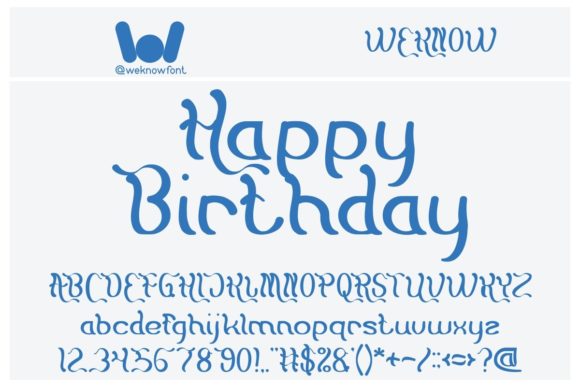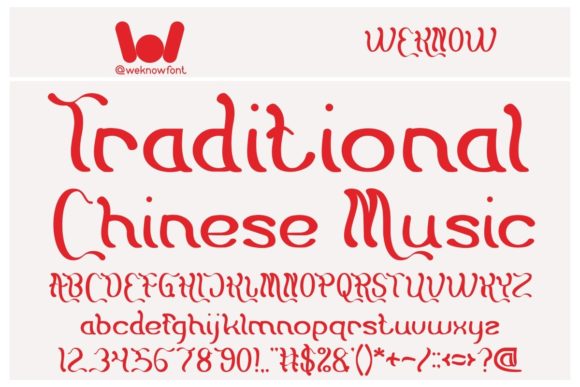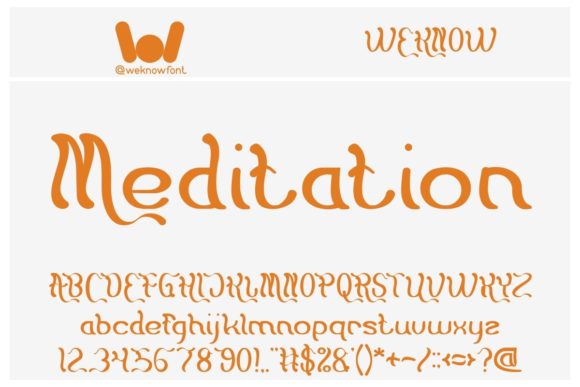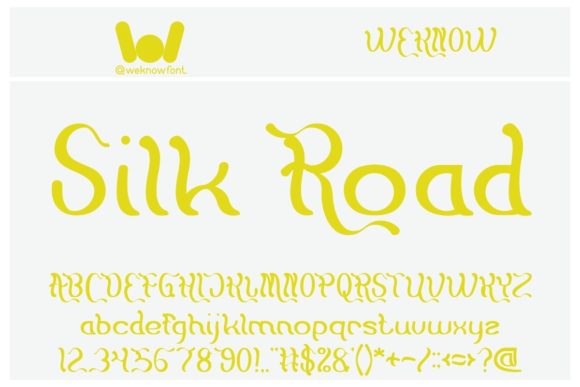
Introducing Flattered Font: Elevate Your Designs with Elegance and Sophistication
Are you a designer or crafter looking for a font that can add a touch of elegance and sophistication to your creative projects? Look no further than Flattered Font, a fancy and versatile typeface suitable for a wide range of applications. In this article, we’ll explore the features and benefits of Flattered Font, and how it can elevate your designs to the next level.
What is Flattered Font?
Flattered Font is a beautifully crafted font designed to add a touch of luxury and refinement to your designs. Its elegant and cursive style makes it perfect for creating stunning logos, logotypes, headlines, and other graphical elements. With its unique and sophisticated look, Flattered Font is ideal for various industries, including corporate identity, brand identity, apparel, posters, music, movies, games, magazines, books, comics, cartoons, and more.
Key Features of Flattered Font
- Versatility: Flattered Font is a highly versatile typeface that can be used in a variety of design projects, from logos and branding to posters and packaging.
- Elegant Style: The font features an elegant and cursive style that adds a touch of sophistication and luxury to your designs.
- High-Quality: Flattered Font is a high-quality font designed to deliver crisp and clear results, even at small sizes.
Use Cases for Flattered Font
Flattered Font is suitable for a wide range of design projects, including:
- Logo Design: Create stunning logos and logotypes that make a lasting impression.
- Branding: Establish a strong brand identity with Flattered Font’s elegant and sophisticated style.
- Apparel: Add a touch of luxury to your apparel designs, from t-shirts to hoodies.
- Posters: Create eye-catching posters that grab attention and leave a lasting impression.
- Digital Media: Use Flattered Font in your digital media projects, such as YouTube videos, Instagram posts, and website designs.
Benefits of Using Flattered Font
By using Flattered Font in your design projects, you can:
- Elevate Your Designs: Add a touch of elegance and sophistication to your designs.
- Stand Out: Create unique and eye-catching designs that set you apart from the competition.
- Save Time: With its easy-to-use design, Flattered Font saves you time and effort in creating high-quality designs.
- Enhance Your Brand: Establish a strong brand identity with Flattered Font’s professional and luxurious style.
Flattered Font is a versatile and elegant typeface that can elevate your designs to the next level. With its sophisticated style and high-quality design, it’s perfect for a wide range of applications, from logos and branding to posters and digital media. Whether you’re a designer or crafter, Flattered Font is a great addition to your font library. So why wait? Download Flattered Font today and start creating stunning designs that leave a lasting impression!